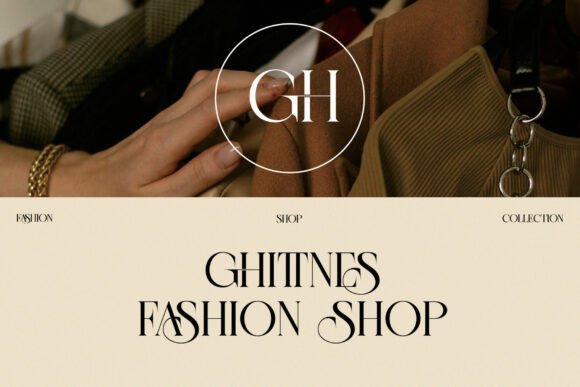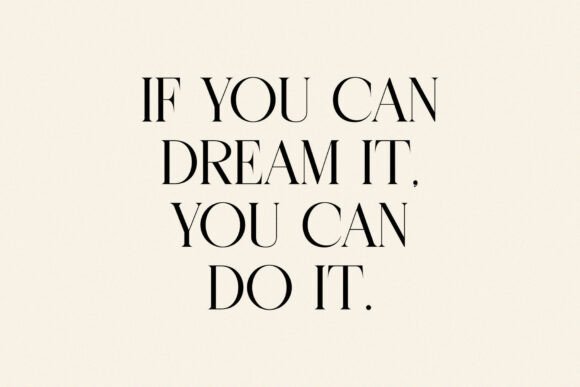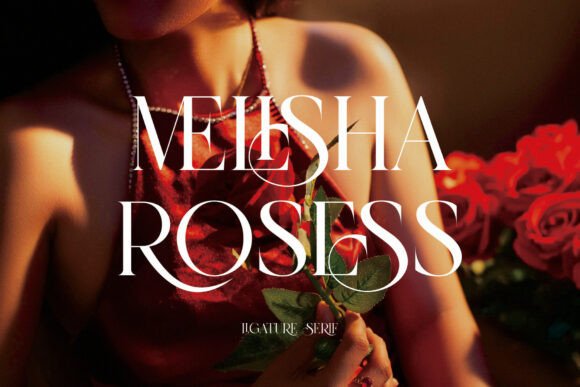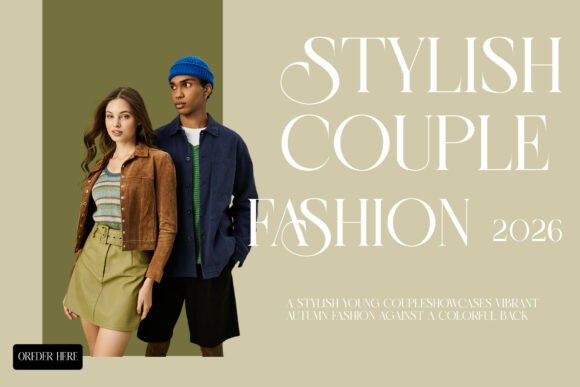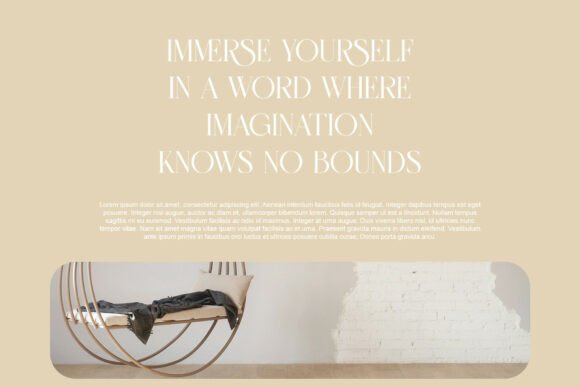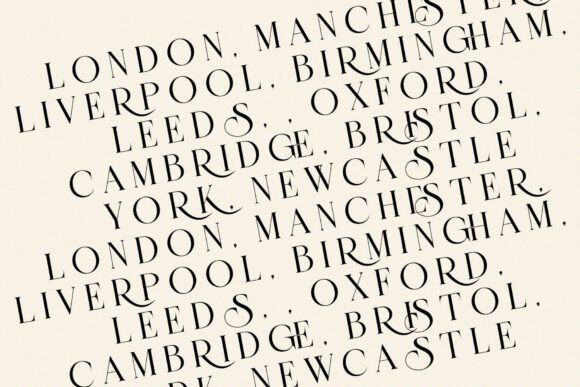
Introducing Gelish Font: Elevate Your Designs with Timeless Elegance
In the world of typography, fonts play a crucial role in conveying the tone and personality of a brand, product, or message. For designers and crafters seeking to add a touch of sophistication and luxury to their work, Gelish font is an exceptional choice. This refined ligature serif font seamlessly blends classic elegance with a subtle modern twist, making it perfect for premium branding, editorial layouts, and high-end invitations.
The Art of Gelish Font
Each character in the Gelish font is meticulously crafted with precision to ensure a harmonious and smooth flow. The font’s design is characterized by its beautiful ligatures, which connect letters in a way that creates a fluid, elegant appearance. This attention to detail makes Gelish stand out from other fonts, offering a unique and refined aesthetic that is sure to elevate any design.
Key Features of Gelish Font
- Refined Ligature Serif Design: Gelish boasts a classic serif design with a modern edge, thanks to its ligatures that connect characters in a graceful and sophisticated manner.
- Timeless Elegance: The font’s design is inspired by traditional typography, yet it incorporates subtle modern elements that make it versatile and contemporary.
- Smooth and Harmonious Flow: The ligatures in Gelish create a seamless connection between characters, resulting in a smooth reading experience and a visually appealing appearance.
- Precision Craftsmanship: Every character in the Gelish font is crafted with precision, ensuring a high level of detail and consistency throughout the font.
Applications of Gelish Font
Gelish font is incredibly versatile and can be used in a variety of applications, including:
- Premium Branding: For luxury brands looking to establish a sophisticated and high-end image, Gelish font is an excellent choice.
- Editorial Layouts: The font’s elegant design makes it suitable for use in magazines, newspapers, and other editorial content where typography plays a crucial role.
- Invitations and Events: Whether it’s a wedding invitation, corporate event, or product launch, Gelish font adds a touch of luxury and sophistication to any invitation or promotional material.
Why Choose Gelish Font?
In a world where typography can make or break a design, choosing the right font is crucial. Here are a few reasons why Gelish font stands out:
- Unique and Distinctive: The ligatures in Gelish create a unique and distinctive appearance that sets it apart from other fonts.
- Versatile: Gelish font can be used in a variety of contexts, from digital platforms to print materials.
- High-Quality Design: The font’s precision craftsmanship ensures a high level of detail and consistency, making it suitable for professional designs.
Gelish font is a refined and elegant ligature serif font that offers a perfect blend of timeless sophistication and subtle modernity. Its precision craftsmanship, beautiful ligatures, and smooth flow make it an ideal choice for designers and crafters looking to add a touch of luxury to their work. Whether you’re working on premium branding, editorial layouts, or high-end invitations, Gelish font is sure to deliver a sophisticated and luxurious feel that elevates your designs to the next level.
With Gelish font, you can create stunning designs that exude elegance and refinement. So why settle for ordinary typography when you can have a font that truly makes your work stand out? Explore the possibilities of Gelish font today and discover a new world of typographic excellence.